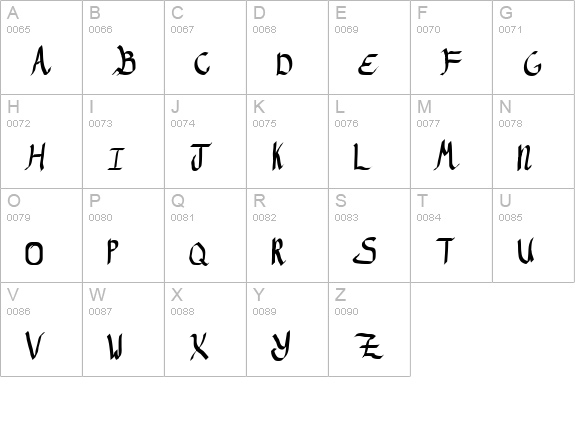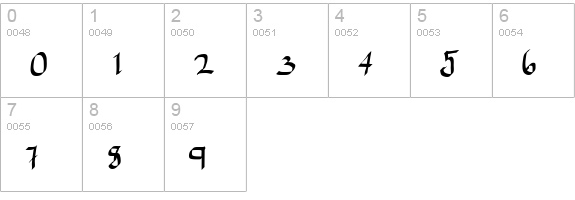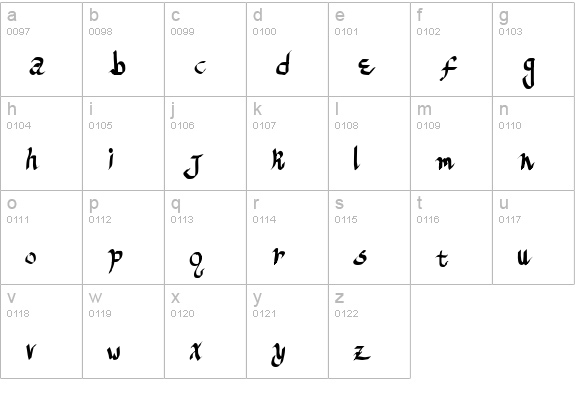
ReGifter Bold Font Details
ReGifter Bold is a strong, high-contrast variant in the ReGifter typeface family \xE2\x80\x94 well suited to headlines, attention-grabbing titles, and strong calls-to-action.
Introducing ReGifter Bold, a versatile and eye-catching font that is sure to make a statement in any design project. With its bold and distinctive letterforms, ReGifter Bold is the perfect choice for headlines, logos, signage, and more. This font combines a modern aesthetic with a touch of playfulness, making it suitable for a wide range of applications. Whether you're designing a poster for a music festival, creating a bold logo for a trendy startup, or simply adding some flair to your social media posts, ReGifter Bold will help you stand out from the crowd. And the best part? ReGifter Bold is available for free! That's right, you can download this amazing font at FontsMarket.com without spending a dime. We believe that creativity should be accessible to everyone, and that's why we're offering ReGifter Bold as a free download. Don't miss out on this opportunity to enhance your designs with a font that is both striking and unique. Download ReGifter Bold today and let your creativity soar!